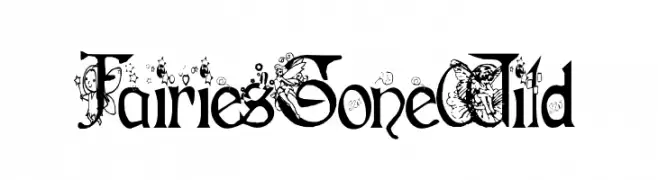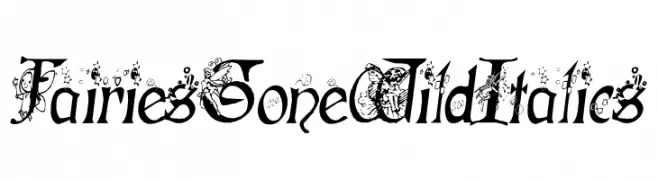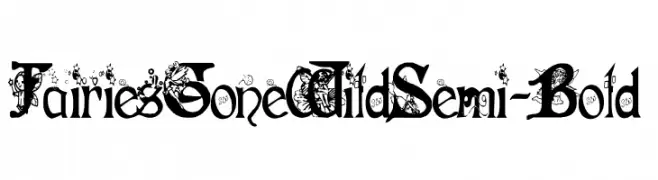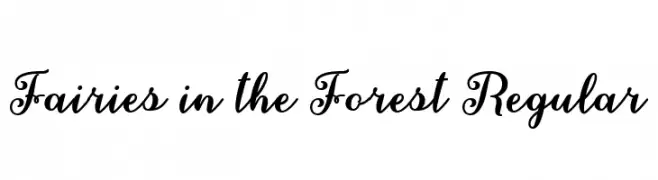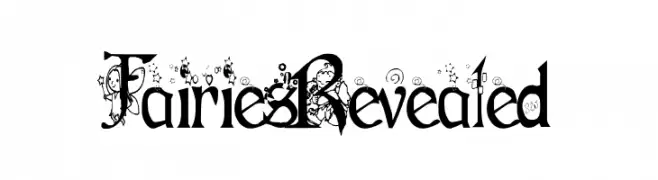
A whimsical and elegant script font with flowing, interconnected letterforms.
A whimsical, fairy-themed decorative font with intricate embellishments.